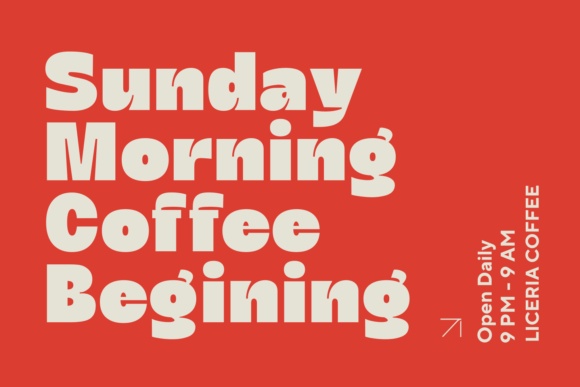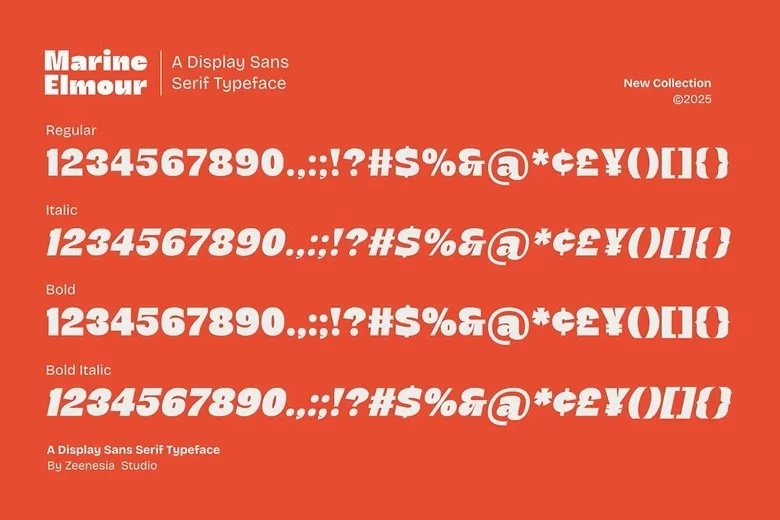
Marine Elmoure is a refined, elegant, bold display sans-serif font with a timeless appeal. It comes in four styles—Regular, Italic, Bold, and Bold Italic—making it versatile for both classic and modern designs. With its graceful curvature, balanced proportions, and distinctive details, Marine Elmoure exudes sophistication.
This typeface goes beyond editorial design; it is also well-suited for branding, packaging, and digital content. Whether you seek an elegant or professional touch, Marine Elmoure enhances any project with its seamless blend of tradition and contemporary style.
Marine Elmoure Display Font